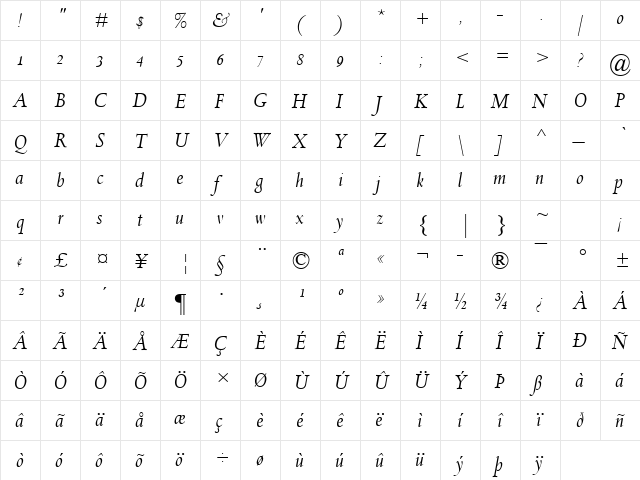
Spectrum MT SC Italic
Design Context for Spectrum MT SC Typeface
Spectrum MT SC is a composed and adaptable typeface that performs quietly and consistently across a wide range of design contexts. Its italic angle brings a sense of urgency and motion to the letterforms.
Pro Tip: Try Spectrum MT SC for annotation and caption copy alongside an upright companion — the contrast in angle creates a dynamic but ordered typographic system.